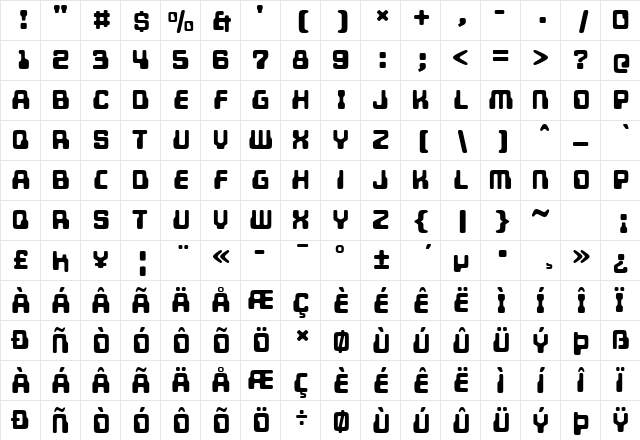
Unicephalon Heavy
Design Context for Unicephalon Typeface
Unicephalon is a composed and adaptable typeface that performs quietly and consistently across a wide range of design contexts.